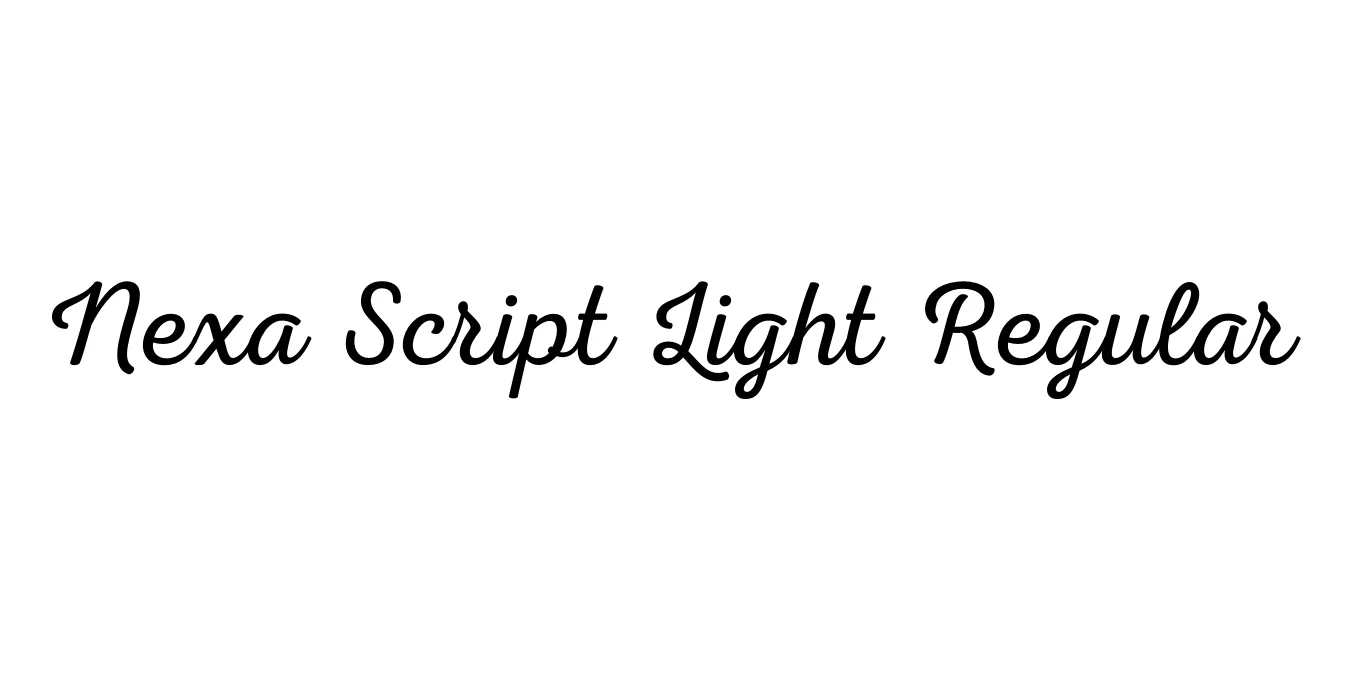
Nexa Script Light Regular
Designed by Ani Petrova
Nexa Script Light Regular is an elegant and contemporary script typeface designed by Ani Petrova and published by the Fontfabric type foundry. It was created as a complementary extension to the globally recognized Nexa and Nexa Slab font families, offering a friendly, handwritten aesthetic that maintains the geometric precision of the original series. The Light weight specifically provides a thin, delicate profile that brings a sense of sophistication and airy grace to digital and print designs.
The font features a monolinear structure with open character shapes, ensuring high legibility even at smaller sizes, which is often a challenge for cursive styles. Nexa Script Light Regular bridges the gap between traditional calligraphy and modern minimalism, making it a versatile tool for designers. It is particularly effective in settings that require a touch of personal flair without sacrificing the clean, professional look of a geometric sans-serif.
Nexa Script Light Regular Best Uses
Perfect for logos and visual identities that require a sophisticated, personal touch.
Ideal for high-end invitations, save-the-date cards, and event programs.
Excellent for creating stylish quotes, Instagram stories, and Pinterest graphics.
Adds a unique and inviting character to hero sections and blog headers.